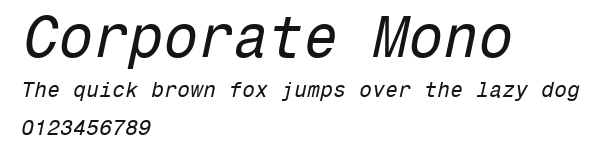
• Font Name: Corporate Mono
• Font Style: Oblique
• Full Font Name: Corporate Mono Oblique
About Corporate Mono.ttf
Corporate Mono.ttf is a modern, elegant sans-serif font designed for ultimate readability and visual harmony. Perfect for branding, headlines, web design, and print materials.